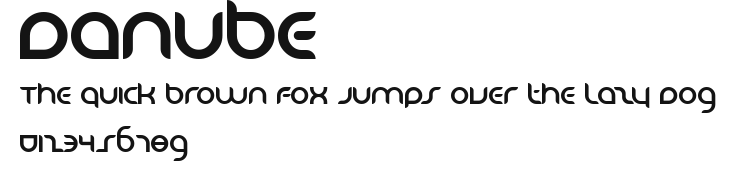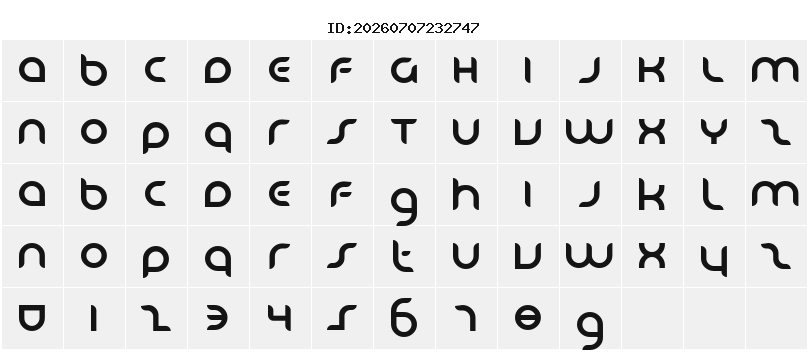
• Font Name: Danube
• Full Font Name: Danube
About Danube.ttf
Danube.ttf is a modern, elegant sans-serif font designed for ultimate readability and visual harmony. Perfect for branding, headlines, web design, and print materials.